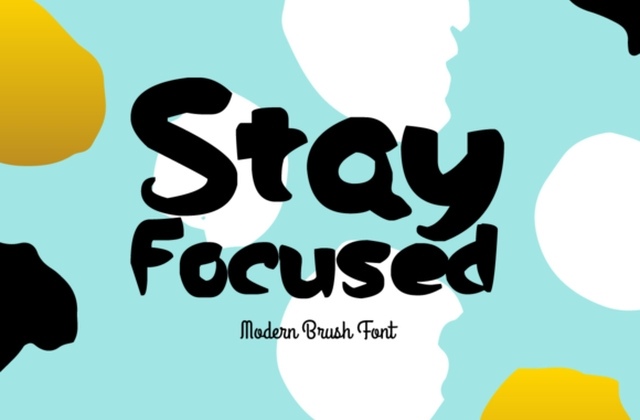
Stay Focused Font
This Stay Focused Font is perfect for productivity app interfaces, motivational coaching materials, mindfulness brand communications, concentration training programs, goal-setting workshops, meditation center signage, performance optimization tools, mental clarity applications, focus enhancement products, and determined achievement campaigns.
What makes this Stay Focused Font exciting is its concentrated clarity that captures the mental discipline and unwavering determination of laser-sharp focus and purposeful achievement. The font features precise letterforms with concentrated characteristics that convey mental clarity, determined focus, and goal-oriented excellence. Its disciplined character and clarity-inspired design make it ideal for brands seeking to communicate mental strength, purposeful direction, and concentrated excellence in productivity and wellness markets.
The Stay Focused Font family includes light, regular, medium, and bold weights with clarity alternates, concentration variants, and purposeful flourishes. This comprehensive focus font family provides designers with disciplined typographic tools to create determined compositions while maintaining the concentrated character essential for productivity brands and mental wellness communications.
Productivity companies and wellness coaches consistently choose Stay Focused Font Free Download for projects requiring authentic focus appeal and mental clarity credibility. This font's distinctive concentrated character perfectly captures the mental discipline and purposeful determination that resonate with audiences who appreciate goal achievement, mental clarity, and brands that embody focused excellence and concentrated performance.
The disciplined construction of Stay Focused Font showcases precisely designed letterforms with clarity proportions that ensure exceptional focus across all productivity applications. Its concentrated appearance and purposeful character create memorable impressions while maintaining the readability necessary for effective focus communication and productivity enhancement materials.
Professional designers appreciate how Stay Focused Font brings immediate clarity authenticity and mental discipline to brand communications. The font's concentrated nature allows organizations to communicate purposeful excellence and mental strength while maintaining the professional quality necessary for effective positioning in productivity and mental wellness markets.
The determined appeal of Stay Focused Font makes it particularly effective for brands emphasizing mental clarity, goal achievement, and concentrated performance. Its disciplined character resonates strongly with audiences who appreciate focused productivity, mental discipline, and brands that represent the power of concentrated effort and purposeful achievement.
Whether developing applications for productivity enhancement or creating materials for mental clarity coaching, Stay Focused Font Free Download provides the concentrated typographic foundation that focus brands need to communicate their mental discipline, purposeful clarity, and the determined excellence that defines concentrated achievement and focused performance success.